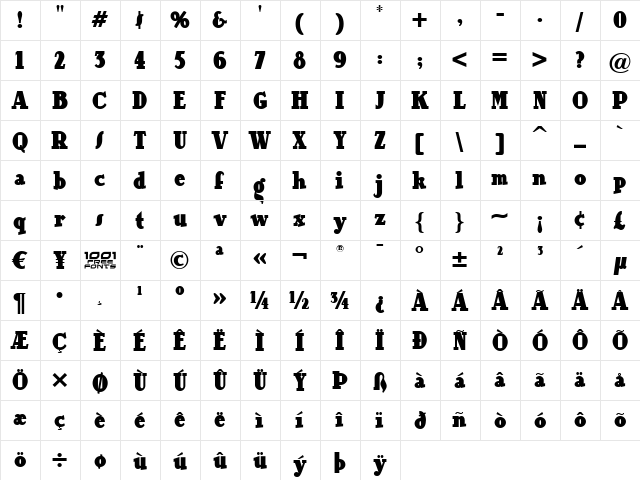
Our Gang NF Regular Font Preview
Our Gang NF Regular
Our Gang NF Regular Font Details
Design Context for Our Gang NF Typeface
Our Gang NF takes a measured approach to typography — its balanced proportions and neutral character make it a reliable workhorse for both digital and print work.